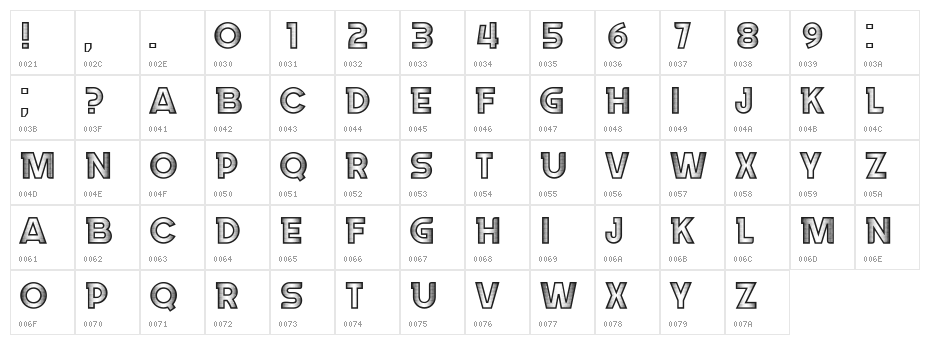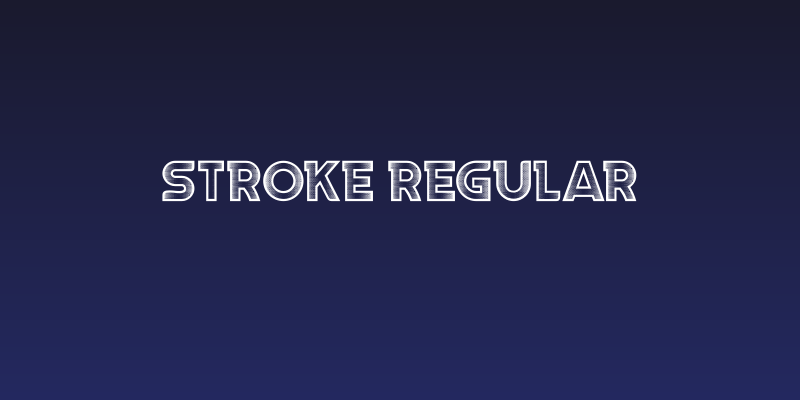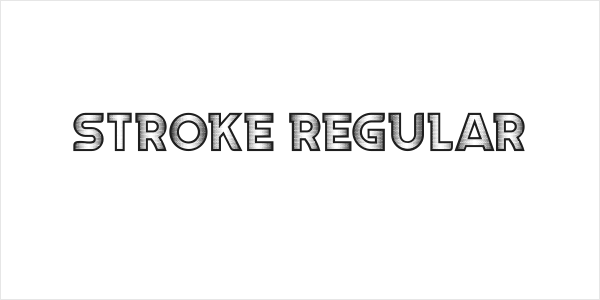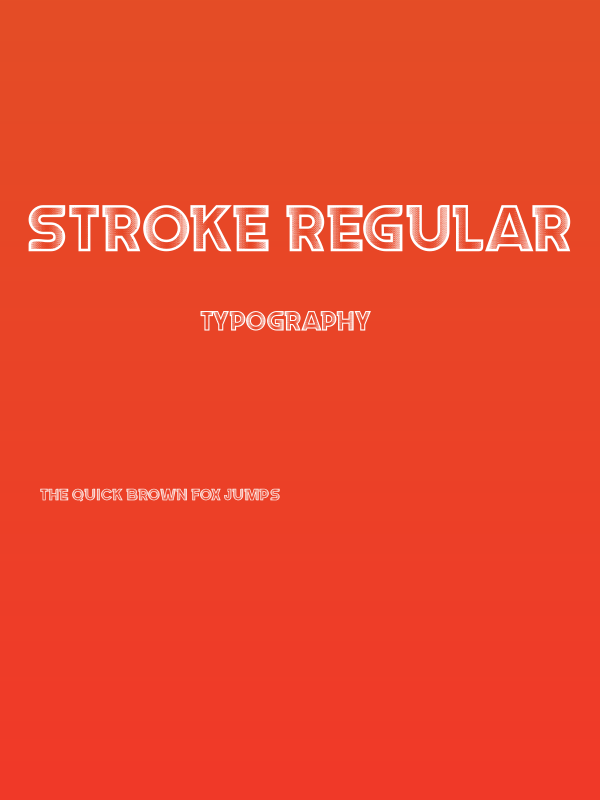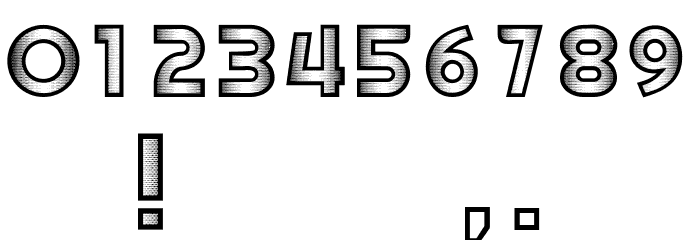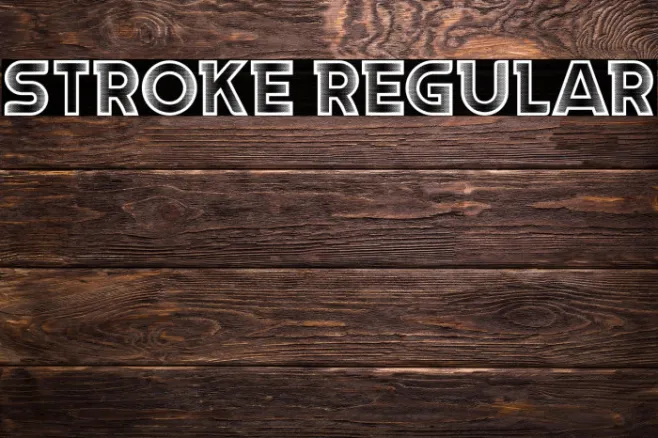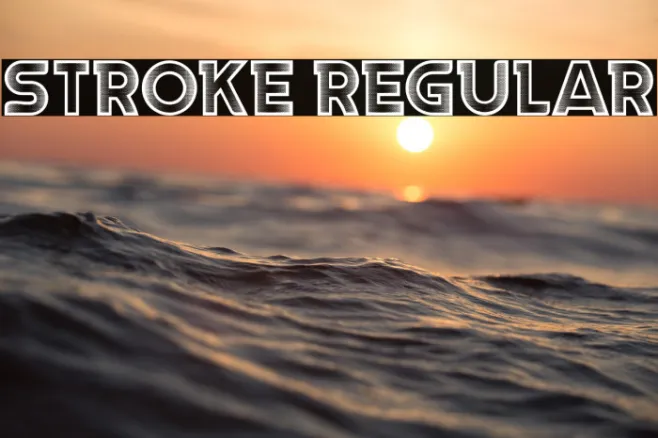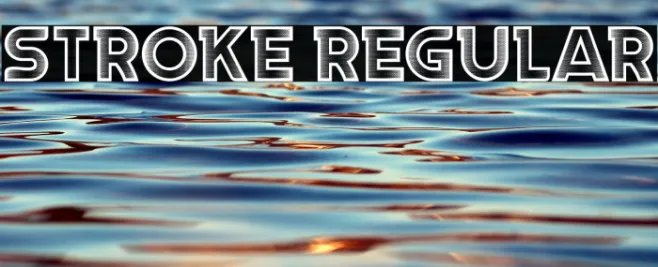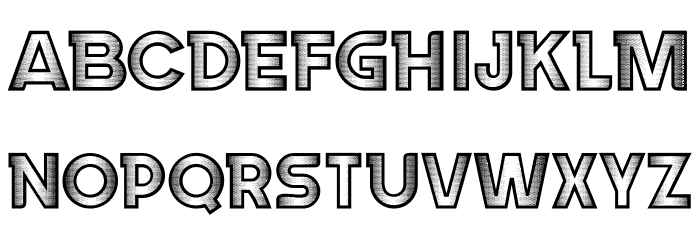
Stroke Regular Font
Stroke Regular Description
This font features a bold, decorative style with a unique lined texture that gives it a three-dimensional appearance. The characters are uppercase, with a strong geometric structure, making them highly legible and impactful. The numbers and special characters follow the same design, ensuring consistency across all glyphs. The font's distinct lined pattern adds a sense of depth and movement, making it suitable for eye-catching designs. Its boldness and decorative elements make it ideal for projects that require a strong visual presence.
| Proposed Projects | Ideal for posters, headlines, logos, and any design requiring a strong visual impact. |